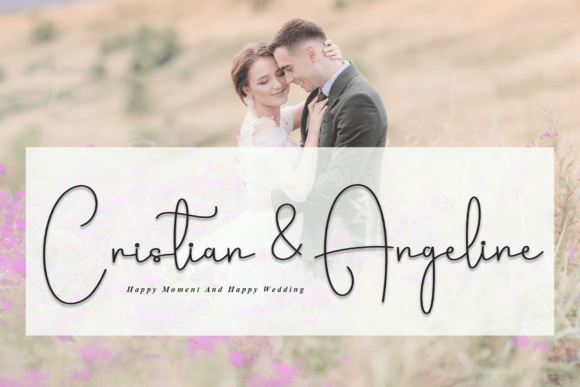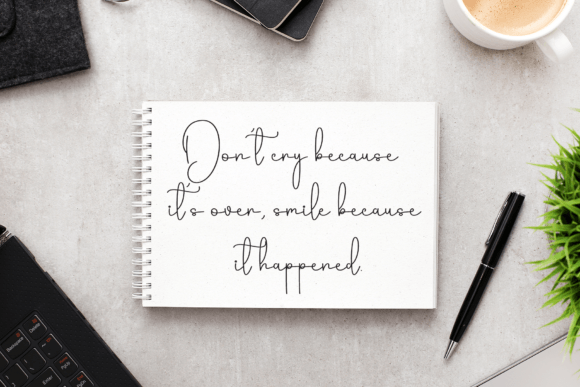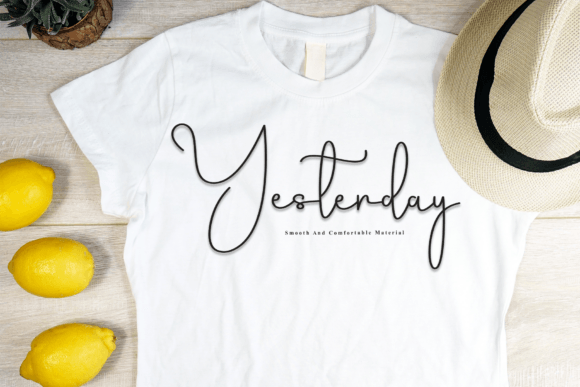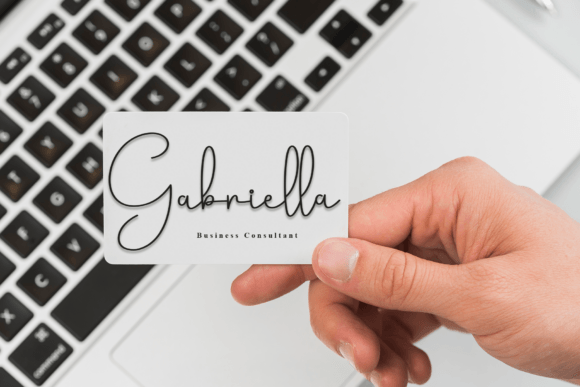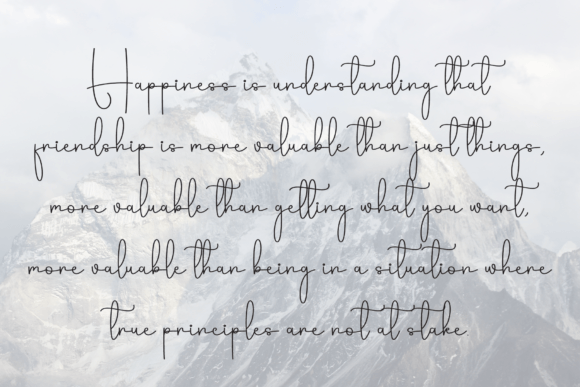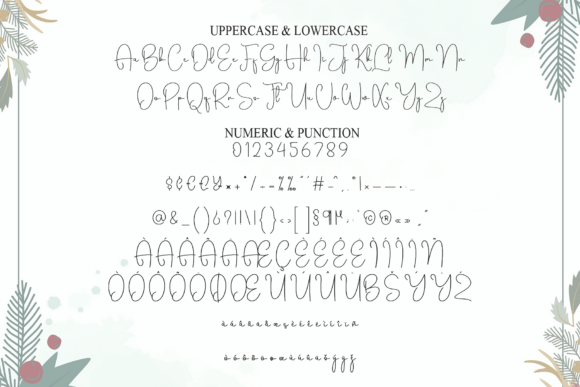
The Perfect Script Font for Your Next Design Project
Have you ever found yourself rummaging through your font library, searching for the perfect script font to capture the essence of a special occasion? I know I have. It’s that moment when you want to add a touch of warmth and personality to your design, and nothing seems quite right. But what if I told you that there’s a font that can make all the difference?
Enter the Beautyday Font, a delightful script font designed to add a playful and charming touch to your designs. Whether you’re working on holiday designs, greeting cards, or festive projects, this font is sure to bring a smile to your face and a spring to your creative step. Its smooth, flowing letters and fun, handwritten style make it the perfect addition to any designer’s toolkit.
With the Beautyday Font, you’ll be able to create designs that are not only visually appealing but also convey a sense of joy and warmth. It’s a valuable asset for designers looking to add a personal touch to their work, and we can’t wait to explore its possibilities with you.
Beautyday Font Key Features
- Font Family: Beautyday Font offers a unique and elegant script font with multiple styles and weights, ideal for various design applications.
- Character Set: The font includes a comprehensive character set, including uppercase and lowercase letters, numerals, punctuation, and special characters.
- Unique Characteristics: The font features a distinctive, flowing script style with subtle flourishes and connections between letters, adding a touch of elegance and sophistication to any design.
Beautyday Font Review
Overall, I’m quite impressed with the Beautyday Font. It’s a beautiful script font that’s perfect for adding a touch of elegance to any design project. ✨ Here are some things that I think work well:
- Unique and feminine feel: The Beautyday Font has a distinct, elegant look that’s perfect for projects targeting a female audience.
- High-quality glyphs: The font includes a wide range of glyphs, including ligatures, swashes, and alternate characters, making it a great choice for designers who want to add some extra flair to their designs.
- Excellent legibility: Despite its script nature, the Beautyday Font is surprisingly easy to read, making it a great choice for body text or headlines.
- Not ideal for tech or modern projects: The Beautyday Font’s elegant, feminine feel may not be the best fit for projects with a more modern or techy vibe.
- May require some adjustments: Depending on the design, you may need to adjust the font size, line height, or other settings to get the look just right.
- May not be as versatile as other fonts: While the Beautyday Font is great for certain projects, it may not be as versatile as other fonts that can adapt to a wider range of design styles.
Overall, I think the Beautyday Font is a great choice for designers who are looking for a beautiful, elegant script font to add some extra flair to their projects. With a little creativity and adjustment, it can be a real showstopper! ⚠️ Just be aware of its limitations and use it in projects where it will shine.